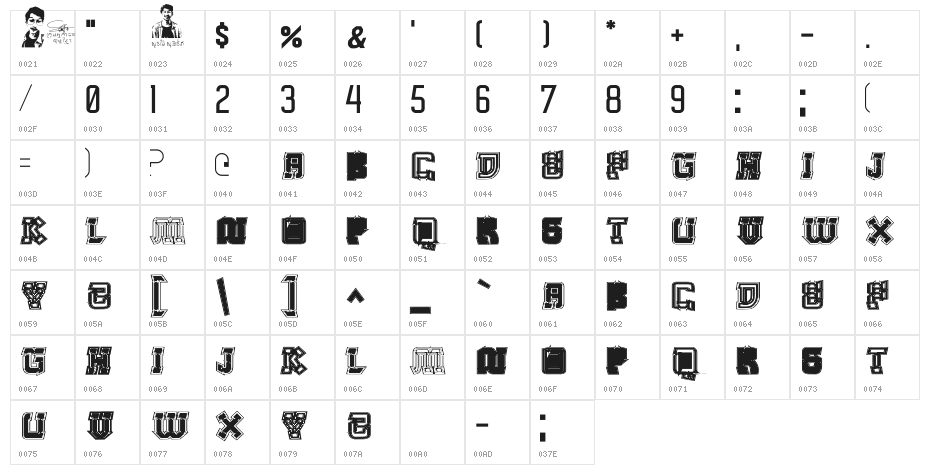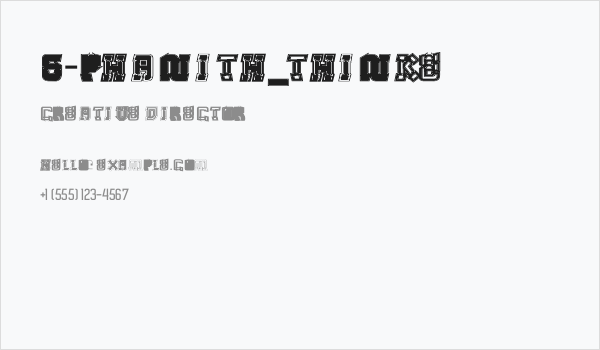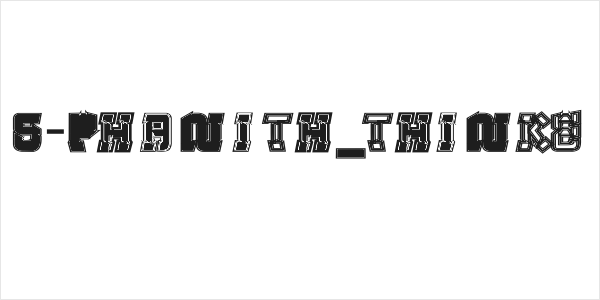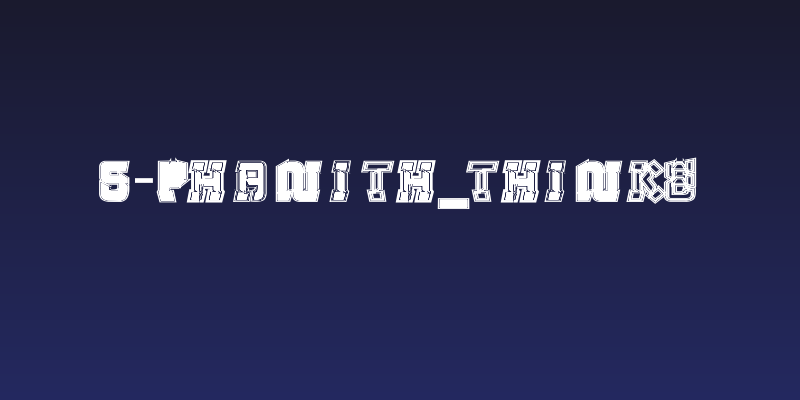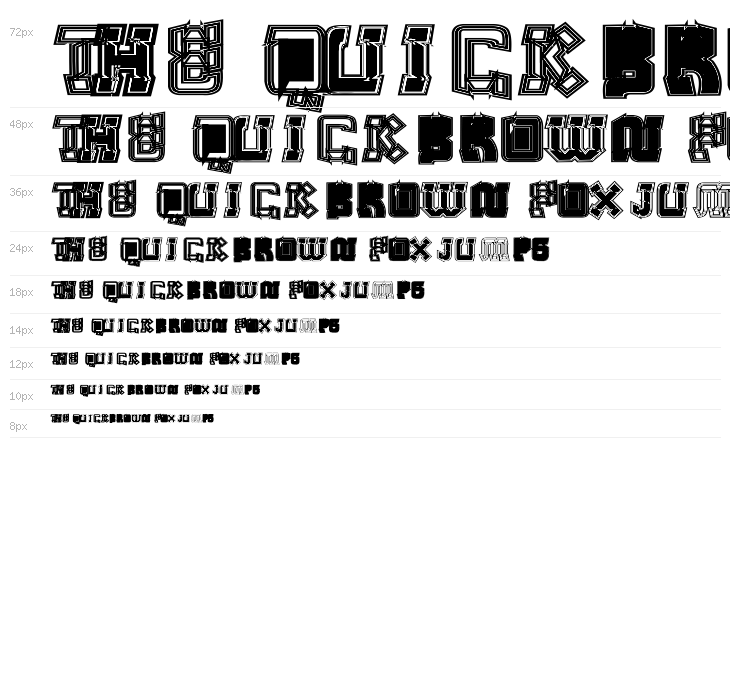
S-PHANITH_THINKE Font
S-PHANITH_THINKE Description
This font features a bold and decorative style with a unique, layered appearance. Each character is designed with intricate details, giving it a three-dimensional effect. The uppercase letters are particularly striking, with a combination of solid and outlined elements that create a sense of depth and complexity. The numbers are more straightforward, maintaining a consistent thickness and clean lines. Special characters are included, matching the bold and graphic nature of the alphabet. This font is ideal for projects that require a strong visual impact and a modern, edgy aesthetic.
| Overall Style | Modern, Edgy |
| Proposed Projects | Ideal for posters, album covers, branding, and any project needing a bold visual statement. |